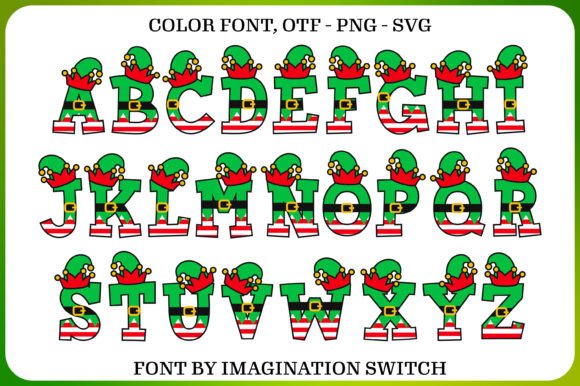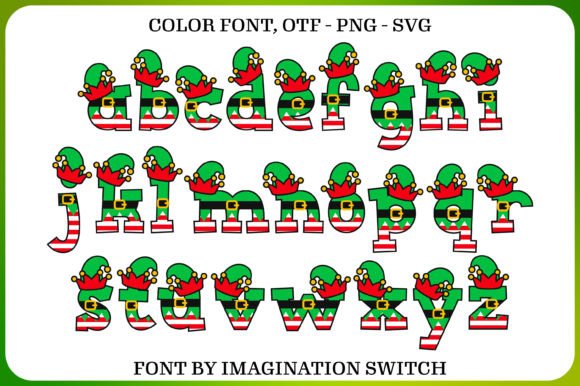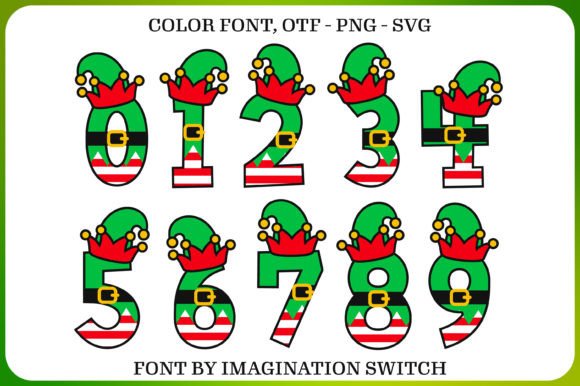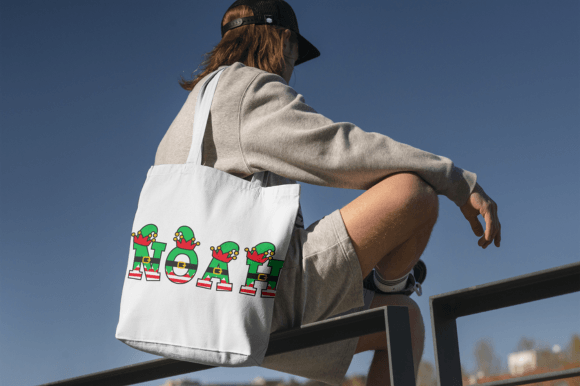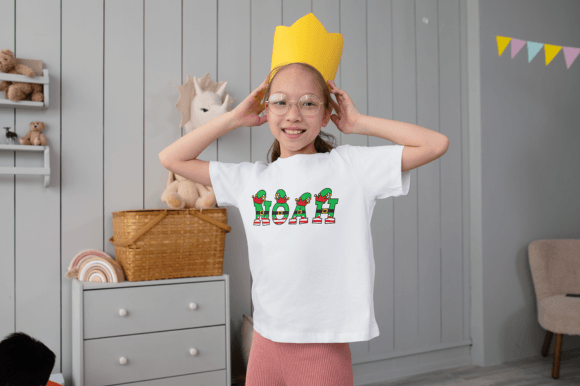
Introducing the Enchanting Elf Christmas Font: Elevate Your Designs with a Touch of Holiday Magic
Are you looking for a font that captures the essence of Christmas and adds a dash of whimsy to your designs? Look no further than the Elf Christmas Font, a captivating typographic creation that is sure to mesmerize your audience. This delightful font is meticulously designed to bring uniqueness and creativity to your projects, making it an ideal choice for designers and crafters alike.
A Font that Shines with Color and Creativity
What sets the Elf Christmas Font apart is its use of intriguing colors to enhance its visual appeal. Each character, including uppercase, lowercase, and numbers, has been carefully chosen to add a mesmerizing visual touch, making every word and number stand out. This font is not just a simple typographic creation; it’s a work of art that brings a touch of holiday magic to your designs.
Flexibility and Versatility
The Elf Christmas Font is designed to provide flexibility across various types of projects. Whether you’re working on print designs, web designs, promotional materials, or more, this font is suitable for a wide range of purposes. Its excellent legibility and visually appealing presentation make it an ideal choice for enhancing the visualization of your message.
Unleash Your Creativity
With the Elf Christmas Font, you can express your creativity in every project you undertake. Craft unforgettable designs with a unique color touch that will leave a lasting impression on your audience. Whether you’re a designer, crafter, or DIY enthusiast, this font is sure to inspire you to create something truly special.
Technical Details and Compatibility
Why Choose the Elf Christmas Font?
So why choose the Elf Christmas Font for your next project? Here are just a few reasons:
- Unique and Creative: This font offers a unique and creative way to add a touch of holiday magic to your designs.
- Flexibility and Versatility: Suitable for a wide range of purposes, including print designs, web designs, promotional materials, and more.
- Excellent Legibility: The font’s excellent legibility makes it easy to read and understand, even at small sizes.
- Visually Appealing: The carefully chosen colors for each character add a mesmerizing visual touch, making every word and number stand out.
Tips and Inspiration for Using the Elf Christmas Font
Here are a few tips and inspiration ideas for using the Elf Christmas Font in your designs:
- Holiday Cards and Invitations: Use the Elf Christmas Font to create festive holiday cards and invitations that will delight your friends and family.
- Christmas Decor: Add a touch of holiday magic to your Christmas decor with signs, banners, and other decorations featuring the Elf Christmas Font.
- Digital Designs: Use the Elf Christmas Font in your digital designs, such as social media graphics, blog posts, and website headers, to add a touch of whimsy and creativity.
The Elf Christmas Font is a captivating typographic creation that is sure to bring a touch of holiday magic to your designs. With its unique and creative use of color, flexibility and versatility, and excellent legibility, this font is an ideal choice for designers and crafters alike. Whether you’re working on a holiday project or just want to add a dash of whimsy to your designs, the Elf Christmas Font is sure to inspire you to create something truly special.